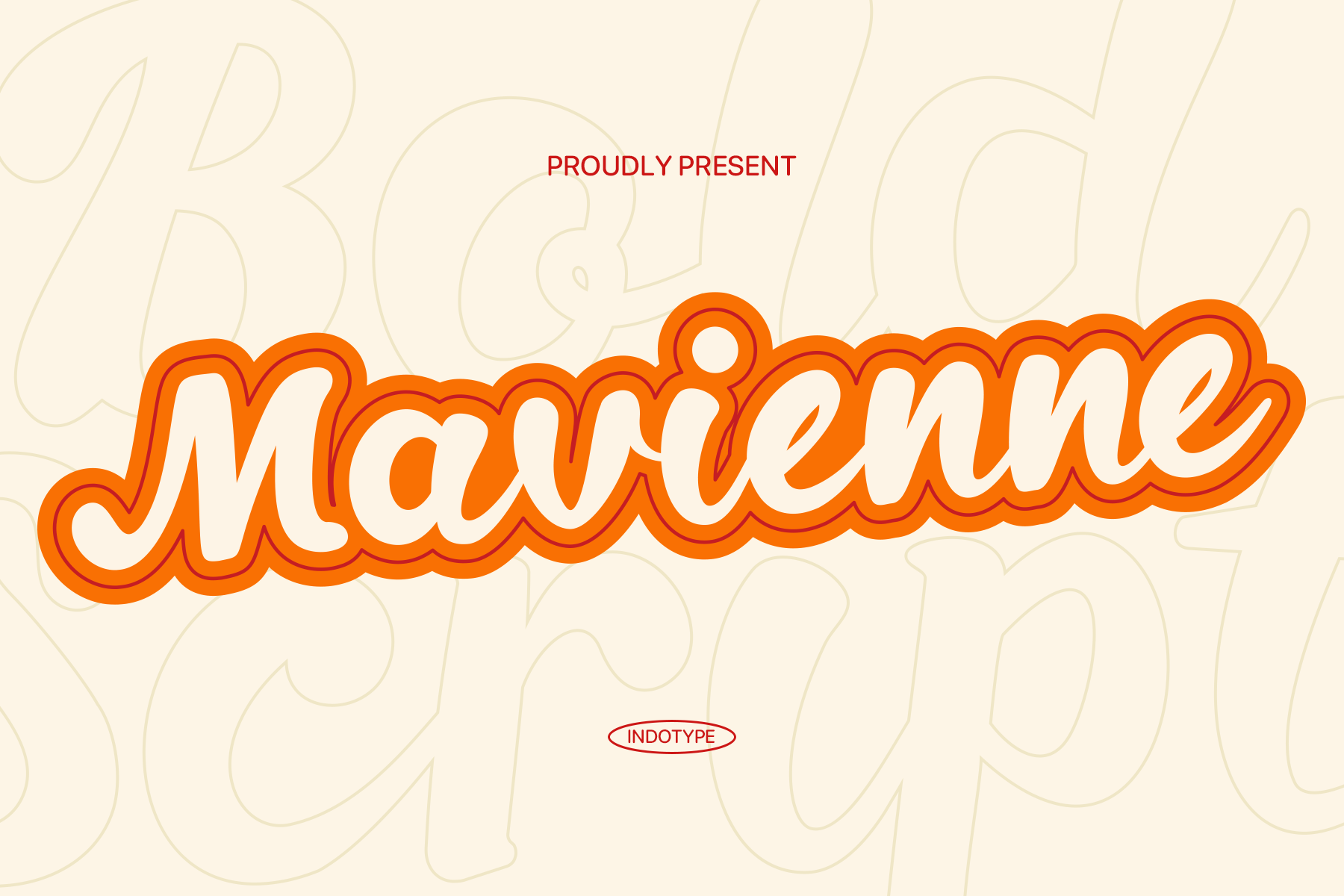
Mavienne - Retro Script Bold Font
Mavienne is a charismatic and bold retro script font that captures the lavish, free-spirited energy of mid-century advertising and vintage signage. With its confident, sweeping strokes, dramatic swashes, and generous letterforms, this typeface exudes personality, nostalgia, and a touch of playful sophistication. It’s designed to command attention, evoking the timeless charm of classic diner menus, retro product labels, and sun-bleached holiday posters. Perfect for projects that need a dose of vintage flair with modern impact, Mavienne brings warmth and character to branding, packaging, and editorial designs. Ideal for craft food labels, boutique branding, event posters, and any design that aims to feel handcrafted, joyful, and unmistakably nostalgic.
- Ideal for: Vintage Food & Beverage Labels, Boutique Branding, Music & Event Posters, Retro Logos, T-Shirt & Apparel Design, Travel & Hospitality Graphics.
- Classification: Script, Display, Retro, Handwritten.
- Attributes: Bold, Swashy, Nostalgic, Playful, Warm, Charismatic, Vintage.